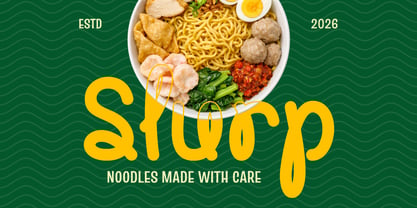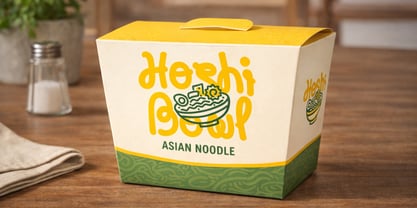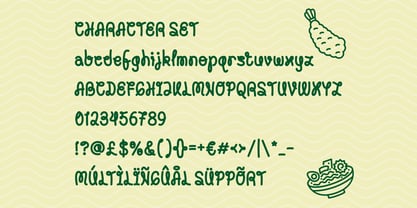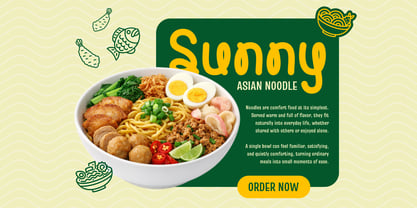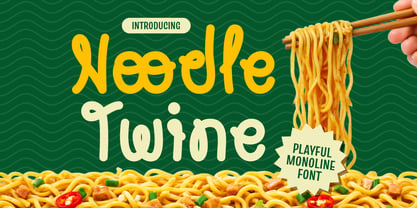
Noodle Twine
The Noodle Twine Font Family was designed by Yesie Erma Yunita and published by Shanaf. Noodle Twine contains 1 styles. More about this family
Noodle Twine Playful Monoline Font presents rounded letterforms built from consistent, single-weight strokes. Each character feels smooth, soft, and evenly balanced across its height. Ascenders and descenders stay moderately short, which keeps words compact and tidy. The stroke thickness remains uniform, giving the font a clean and approachable rhythm. Curves dominate the structure, while sharp angles stay minimal. This creates a relaxed flow that feels natural and hand-drawn. Spacing appears open enough to support clarity at display sizes. The overall texture feels light, friendly, and organic. The style fits playful and casual typography with a modern touch. It avoids rigid geometry and instead favors warmth and charm. This character suits food-related themes that focus on comfort and everyday enjoyment. Noodle Twine Playful Monoline Font works well for branding that wants to feel welcoming, simple, and memorable. This font style fits playful, fun, and modern display categories with a strong food branding focus. It works especially well for noodle shops, food stalls, cafes, and casual dining brands. The monoline structure supports clear logo systems and readable brand names. It also performs well for packaging, menus, posters, advertisements, and headline text. Short phrases and titles feel friendly and expressive without becoming cluttered. The font supports stickers, greeting cards, book covers, magazine titles, and crafting projects. It helps food brands communicate warmth, approachability, and personality. The rounded shapes keep the tone light and cheerful. This makes it effective for businesses that target families and everyday customers. Noodle Twine Playful Monoline Font strengthens visual identity while keeping communication clear, simple, and engaging across digital and print materials.